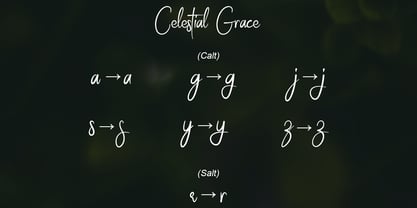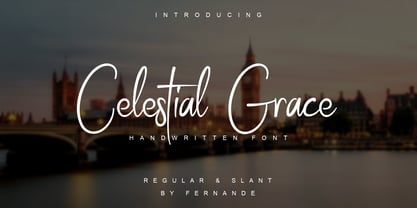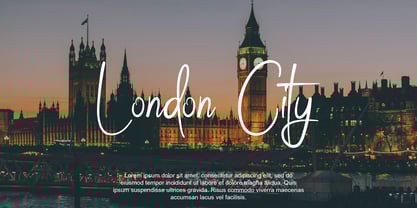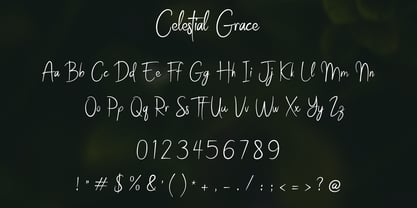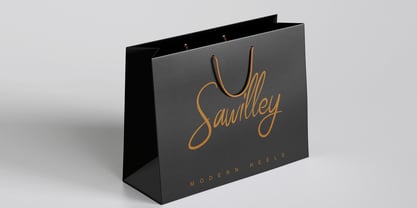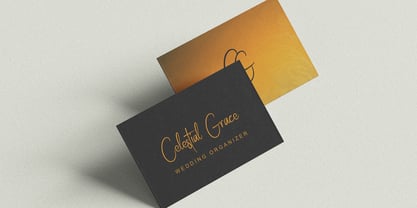
Celsetial Grace
by Fernande
The Celsetial Grace Font Family was designed by Angga Fernandi and published by Fernande. Celsetial Grace contains 2 styles and family package options. More about this family
“Celestial Grace,” a momentous handwritten font, embodies elegance and grace. Quintessentially versatile, it presents itself in two distinct styles: Regular and Slant. Its design is inspired by the fluidity of natural handwriting, promoting a soft, thoughtful touch that infuses warmth and intimacy into every word. This distinguishes it for various applications, ranging from sleek logos to attractive branding, and enchanting invitations.
"Fernande is a type foundry run by Angga Fernandi, specializing in the creation of elegant and lively handwritten typefaces with great precision. With a passion for experimenting with letterforms, it creates unique and expressive fonts. Committed to quality and innovation, it strives to provide distinctive typography that enriches visual storytelling and design aesthetics."